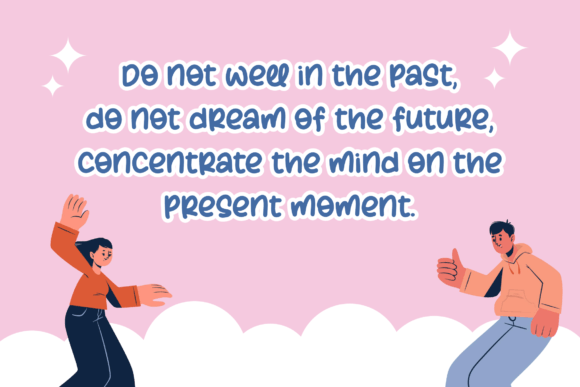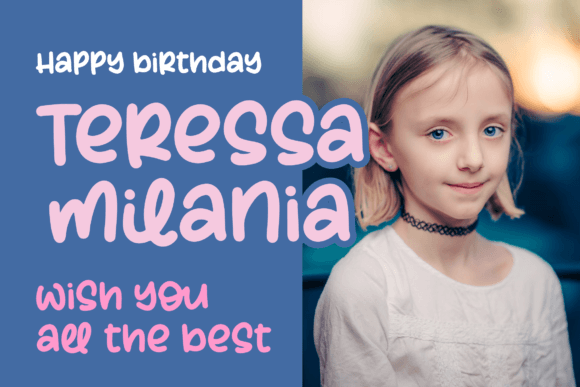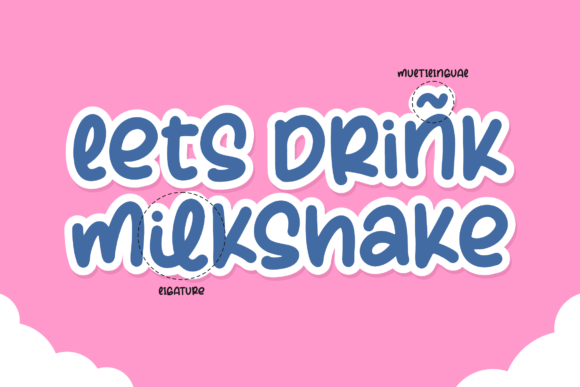
About Milkshake Creps Font
**Milkshake Creps: Where Friendliness Meets Style in Typography**
Introducing “Milkshake Creps,” a hand-lettered typeface that exudes friendliness, charm, and a distinctive style. This font is not just a set of letters; it’s a design choice that brings character to your text. Perfect for a variety of applications, from quotes and headings to logos, branding, merchandise, and websites, “Milkshake Creps” is a versatile and welcoming addition to the world of typography.
**1. Friendly Hand-Lettered Charm:**
– At the heart of “Milkshake Creps” lies a friendly hand-lettered charm that instantly connects with the viewer. The strokes are not just meticulously crafted; they carry an inviting warmth that makes the font approachable and appealing.
**2. Distinctive Style with Personality:**
– The distinctive style of “Milkshake Creps” is its signature feature. It doesn’t conform to the ordinary; instead, it brings a personality of its own. Each letter carries a unique flair, turning your text into a visual representation of style and individuality.
**3. Perfect for Quotes and Headings:**
– Quotes and headings often demand a typeface that can convey the message with impact. “Milkshake Creps” steps into this role seamlessly, adding a touch of charm to every word. It’s not just about the text; it’s about creating a visual experience that resonates with the audience.
**4. Logo and Branding Brilliance:**
– Logos and branding require a typeface that can embody the essence of the brand. “Milkshake Creps” rises to the occasion, infusing your brand with a friendly and stylish identity. It’s not just a font; it becomes an integral part of your brand’s visual language.
**5. Merchandise and Website Appeal:**
– Whether on merchandise or websites, the appeal of “Milkshake Creps” is undeniable. Its versatility shines through as it effortlessly blends with different design elements, creating a cohesive and aesthetically pleasing look.
**6. Versatile Design Companion:**
– The versatility of “Milkshake Creps” makes it a reliable design companion for a range of projects. It adapts to different contexts without losing its charm, ensuring that whether it’s a quote on social media or a prominent heading on a website, the font delivers consistently delightful results.
In conclusion, “Milkshake Creps” is more than a typeface; it’s an expression of friendliness and style. It transforms your text into a conversation, where each letter carries a unique personality. From quotes that inspire to logos that leave a lasting impression, “Milkshake Creps” is the design choice that bridges the gap between charm and style. Embrace it in your projects, and let your text speak a language of warmth, individuality, and visual appeal.